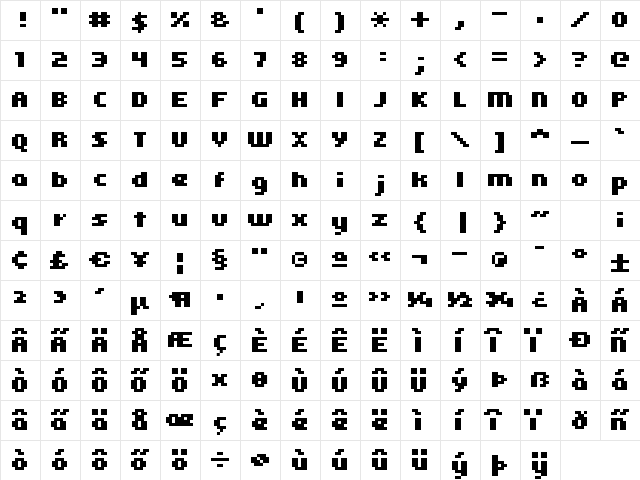
kroeger 05_66 Regular
Design Context for kroeger 05_66 Typeface
kroeger 05_66 takes a measured approach to typography — its balanced proportions and neutral character make it a reliable workhorse for both digital and print work.
Pro Tip: Pair kroeger 05_66 with a font of contrasting weight or personality to build a more expressive typographic hierarchy.